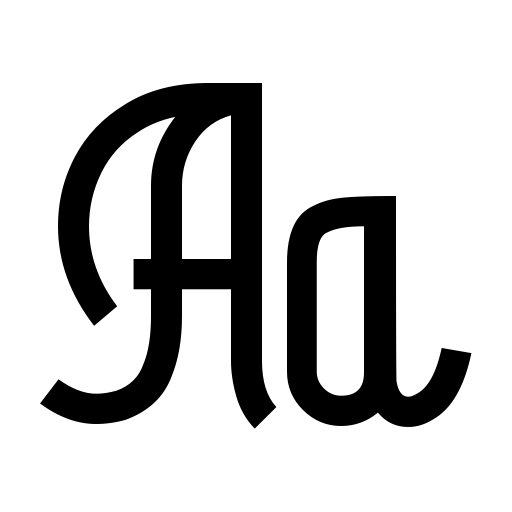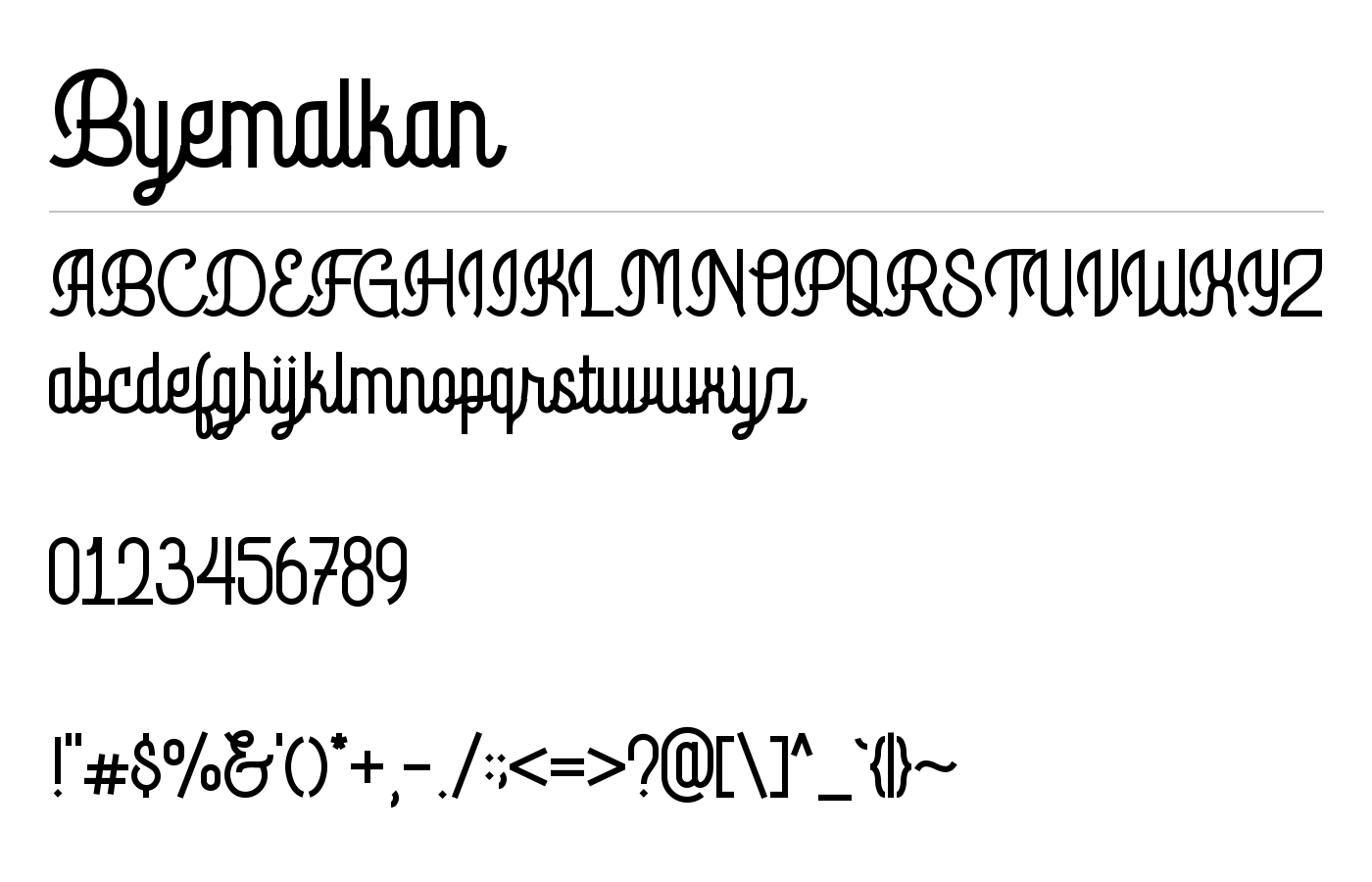
Byemalkan is a unique, decorative sans serif font featuring a blend of geometric and calligraphic elements with a narrow, condensed structure. Its elegant, playful letterforms with distinctive curls and loops lend a vintage yet modern charm, making it ideal for creative branding, logos, and eye-catching headlines where a stylish, personal touch is desired.
Byemalkan Font